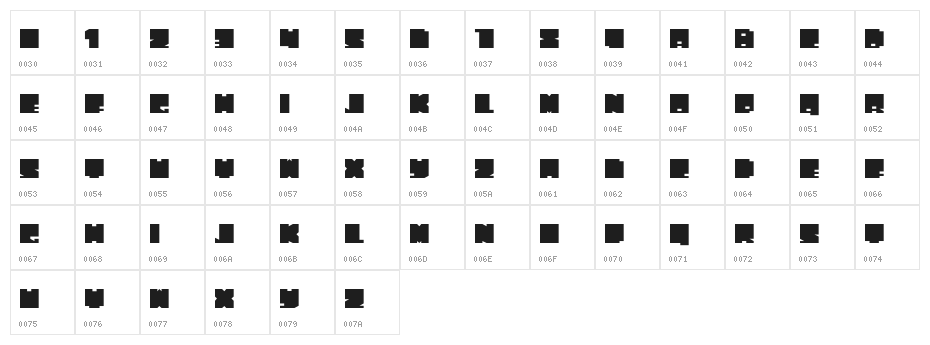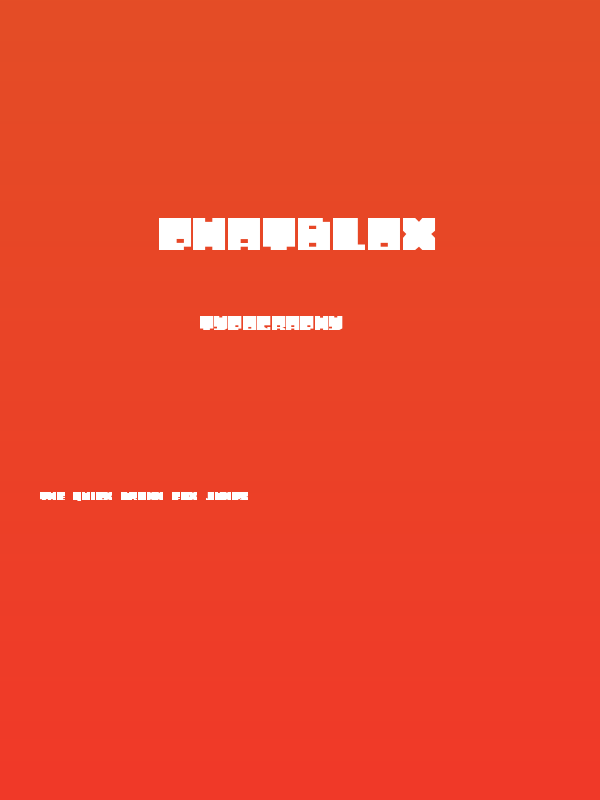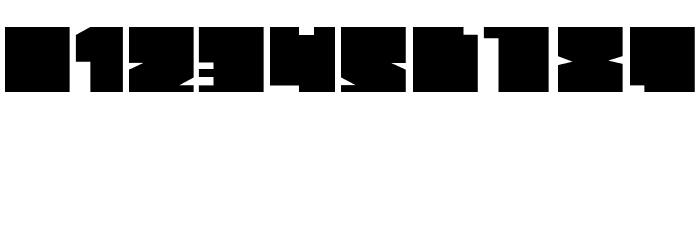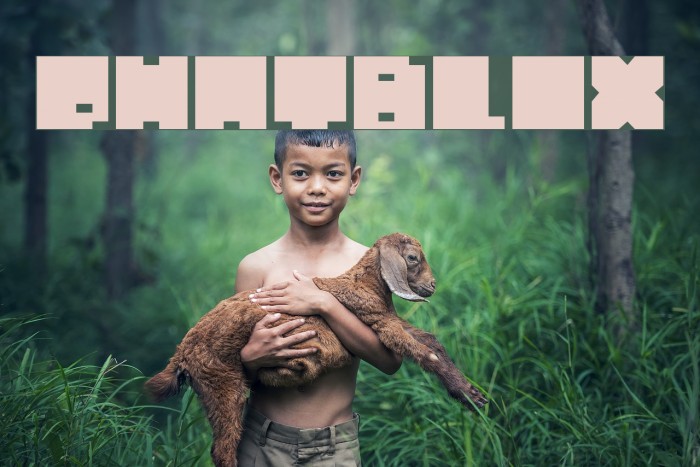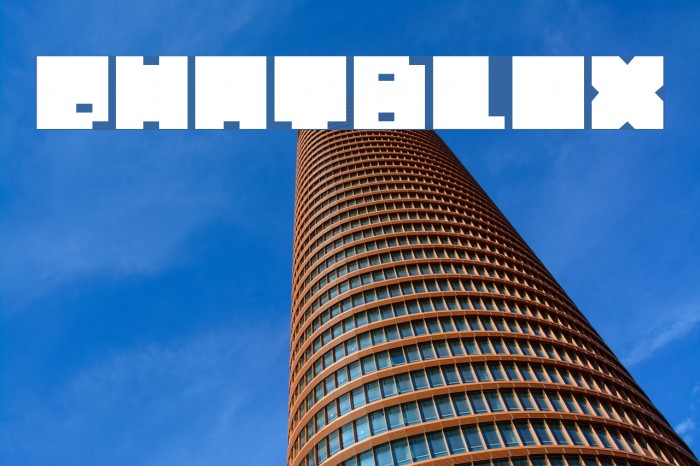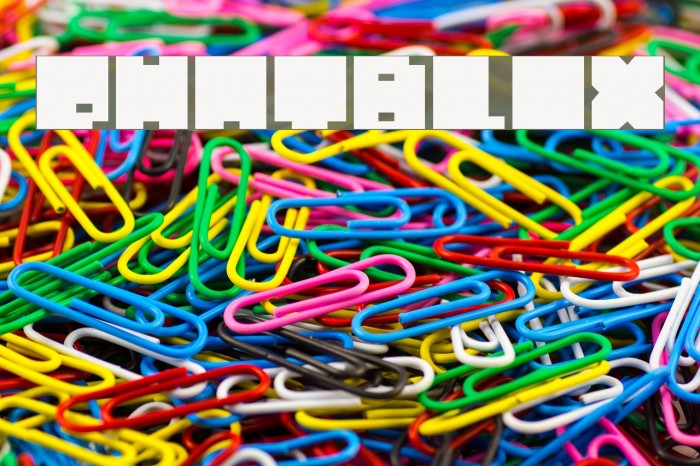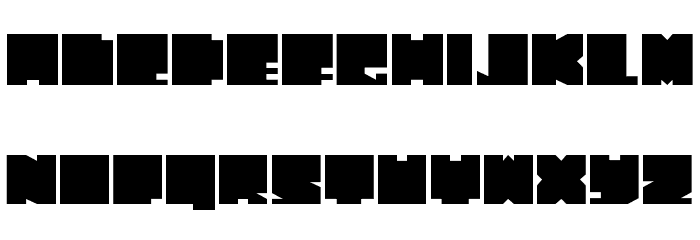
PhatBlox Font
PhatBlox Description
This font features a bold and blocky design with a distinctly geometric and angular style. Each character is constructed with sharp edges and straight lines, creating a sense of strength and modernity. The uppercase and lowercase letters maintain a consistent width, contributing to a uniform appearance. The numbers and special characters follow the same design principles, ensuring a cohesive look across all glyphs. The font's heavy weight and solid structure make it highly visible and impactful, ideal for grabbing attention.
| Proposed Projects | Ideal for posters, headlines, logos, and any design requiring a strong, modern aesthetic. |